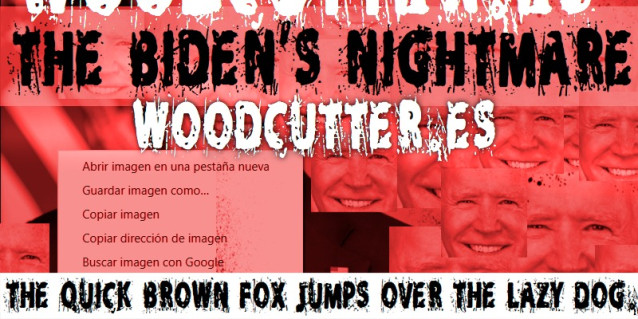
The Biden’s Nightmare Font
The Biden’s Nightmare Font, Perfectly fit for branding, logo, wedding things, greeting cards, fashion, lookbook, marketing promotion, anytime you want to look fancy elegant but still casual.
The Biden’s Nightmare.